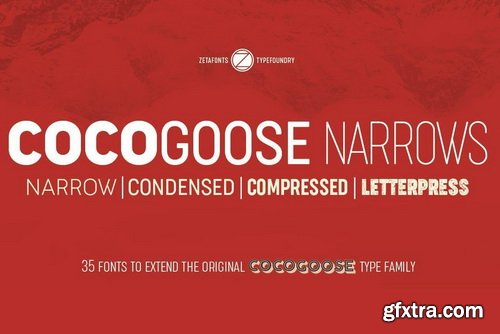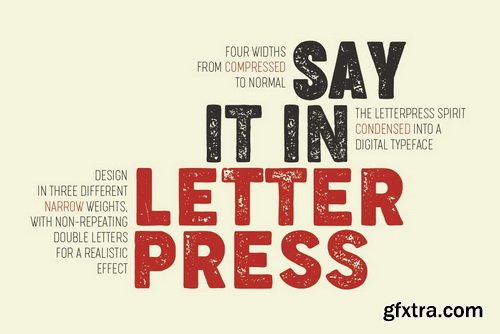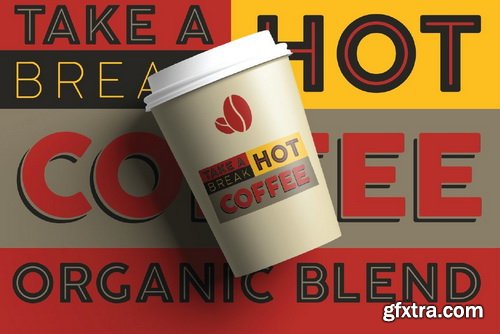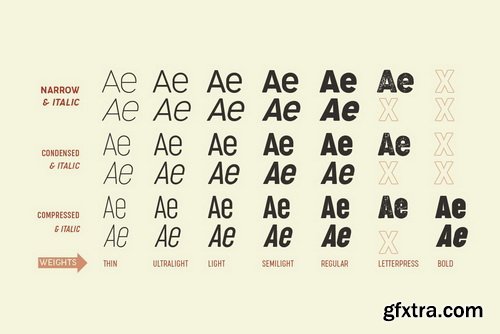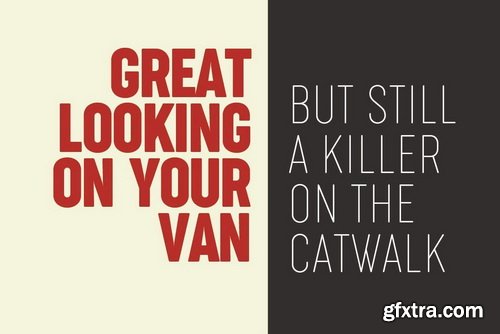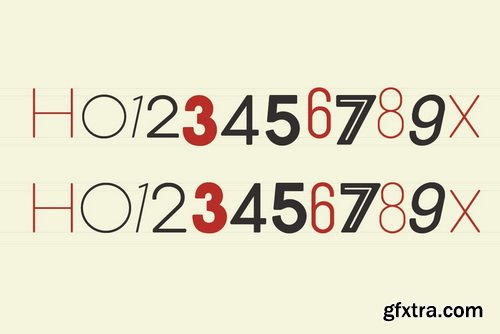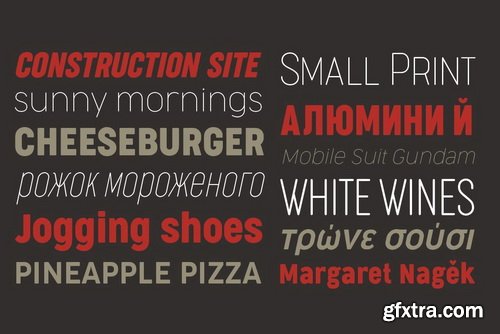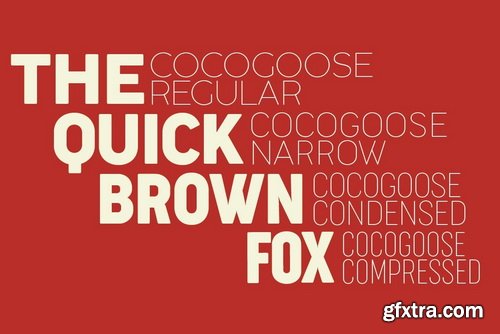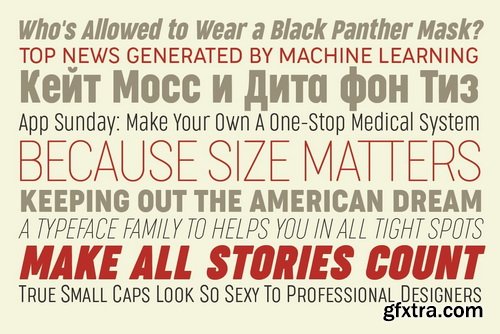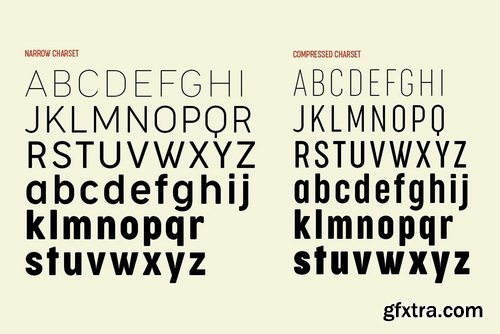
Cocogoose is a geometric sans serif typeface designed with straight, monolinear lines and circular or square shapes. Its strong, modernist look has been softened by rounded corners and slight visual corrections that make Cocogoose not only perfect for logos and headings, but also very readable as a text font, thanks to its generous x-height.The standard Cocogoose Pro (10 weights with three display variants, letterpress, inline and outlined, plus four overlapping decorative versions: Block Shadow, Block Innerline, Block Border, Block Gradient) has been complemented with 3 new widths: condensed, compressed and narrow, each in multiple weights with italics, small capitals, alternates, old style numerals, full Cyrillic and greek character sets, and sporting the beloved letterpress version.